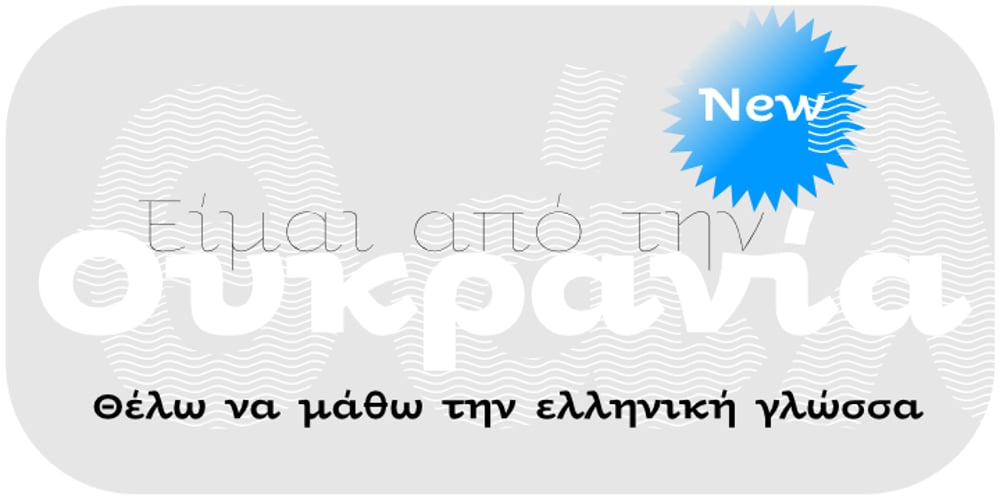
Oksana Greek Font Family was designed by Andrij Shevchenko and published by AndrijType. Oksana Greek contains 24 styles and family package options. Oksana Greek has only basic Latin and monotonic Greek characters from multilingual Oksana. It has six weights with real italics, and Alt faces with Old Style figures, ampersand, alternative characters -a-g-k-y- and Greek -Ε-Ξ-β-ε-θ-φ-.